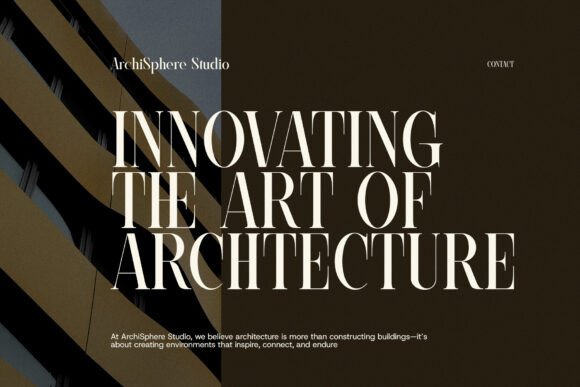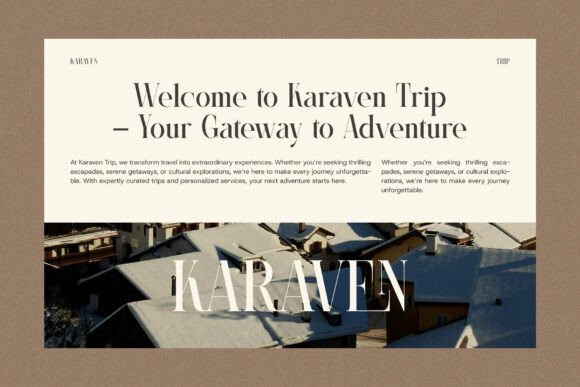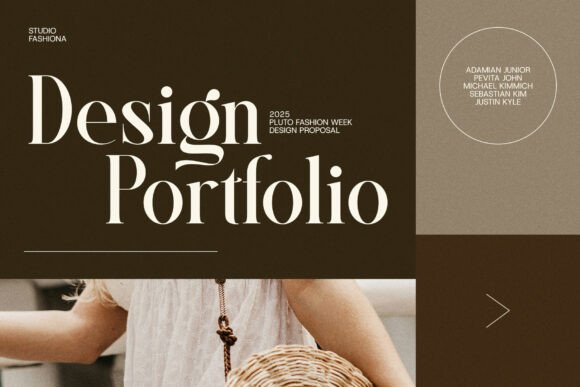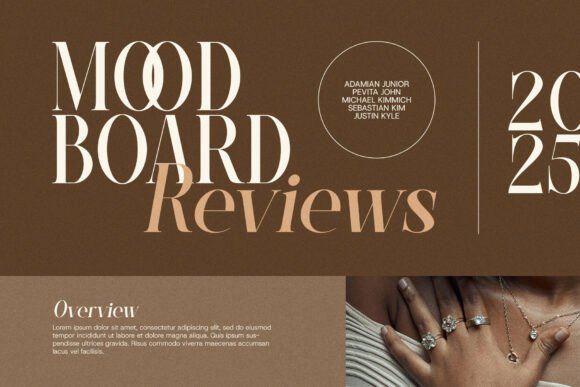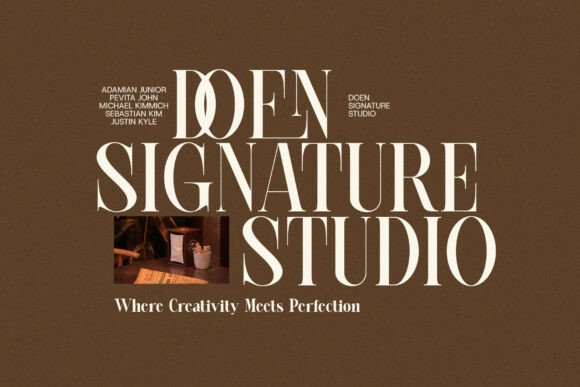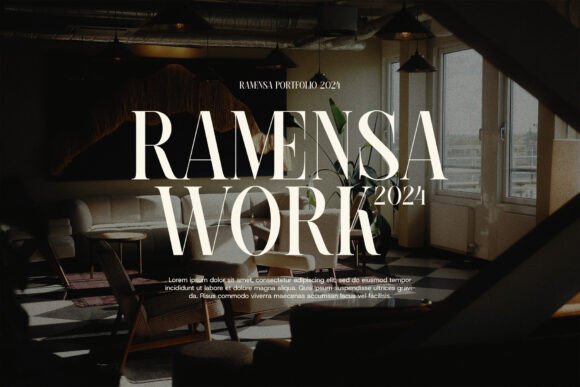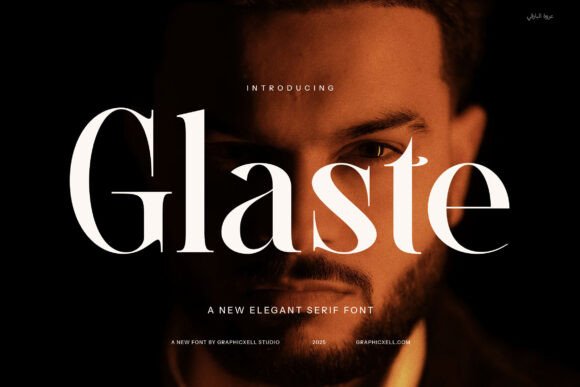
Glaste Elegant Serif Font: Elevate Your Designs with Timeless Sophistication
In the world of typography, a well-crafted font can make all the difference in elevating your design to new heights. Introducing Glaste Elegant Serif Font, a contemporary and stylish typeface that seamlessly blends modern elegance with timeless sophistication. Designed with meticulous attention to detail, Glaste is the perfect choice for designers and crafters seeking to add a touch of refinement to their projects.
Distinctive Features of Glaste Font
Glaste Elegant Serif Font boasts an array of distinctive features that set it apart from other typefaces. Its finely crafted serifs, smooth curves, and unique ligatures work in harmony to create a visually stunning font that exudes luxury and poise. The serifs, carefully designed to be both elegant and legible, add a touch of sophistication to any design, while the smooth curves provide a sense of fluidity and movement.
One of the standout features of Glaste is its ligatures, which allow for flexible design options and distinct typographic expressions. Ligatures are special characters that combine two or more letters to create a single, unique glyph. In Glaste, these ligatures are thoughtfully designed to add an extra layer of elegance to your typography, making it perfect for high-end designs, such as luxury branding, fashion magazines, and upscale packaging.
Alternate Forms for Enhanced Versatility
Glaste Elegant Serif Font takes versatility to the next level with its alternate forms, which enable designers to create customized, one-of-a-kind compositions. These alternate forms provide a range of design possibilities, allowing you to experiment with different styles and moods. Whether you’re looking to create a bold statement or a subtle, understated design, Glaste’s alternate forms give you the flexibility to achieve your vision.
With Glaste, you can create a wide range of designs, from elegant and refined to bold and playful. The font’s versatility makes it perfect for various design applications, including:
- Luxury branding and packaging
- Fashion magazines and editorials
- Wedding and event invitations
- High-end advertising and marketing materials
- Web design and digital media
Why Choose Glaste Elegant Serif Font?
So, why choose Glaste Elegant Serif Font for your design projects? Here are just a few reasons:
- Timeless sophistication: Glaste’s classic design ensures that your typography will remain stylish and relevant for years to come.
- Flexibility and versatility: With its alternate forms and ligatures, Glaste provides a range of design possibilities to suit your creative vision.
- Attention to detail: The font’s finely crafted serifs, smooth curves, and unique ligatures demonstrate a clear attention to detail, ensuring that your designs stand out from the crowd.
- Ease of use: Glaste is designed to be easy to read and use, making it perfect for both print and digital applications.
In conclusion, Glaste Elegant Serif Font is a stunning typeface that offers a perfect blend of modern elegance and timeless sophistication. Its distinctive features, including finely crafted serifs, smooth curves, and unique ligatures, make it an excellent choice for designers and crafters seeking to elevate their designs. With its alternate forms and versatility, Glaste provides a range of design possibilities, making it perfect for various applications, from luxury branding to web design. Whether you’re looking to create a bold statement or a subtle, understated design, Glaste Elegant Serif Font is the perfect choice for your next project.